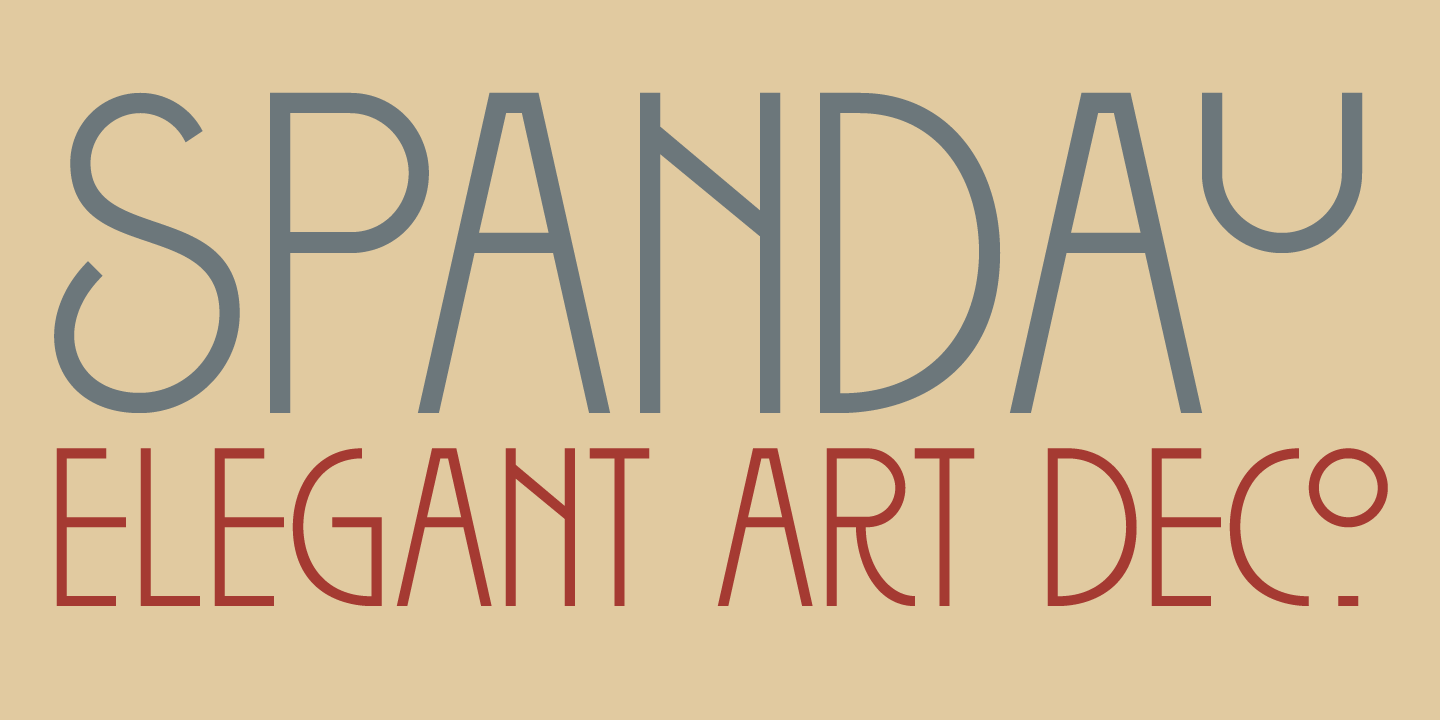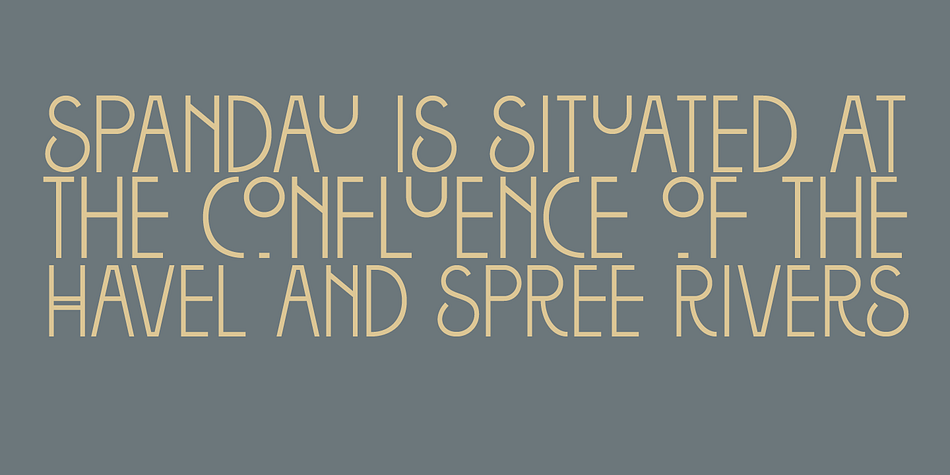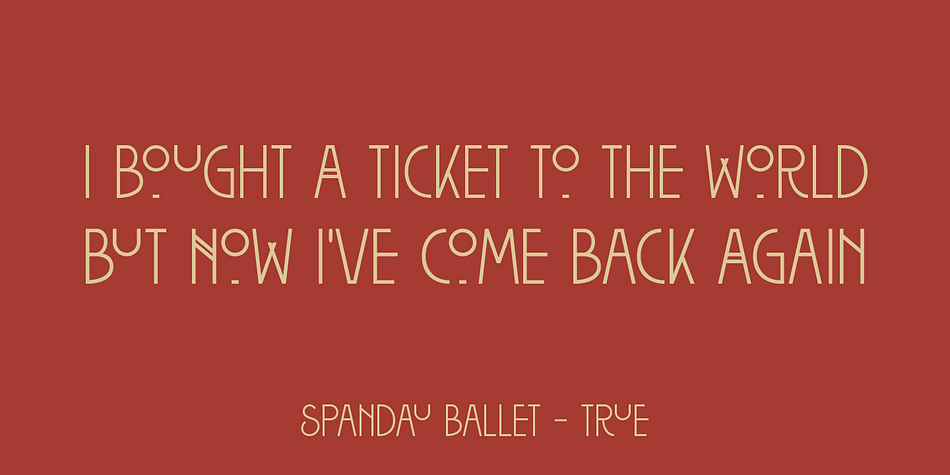
Spandau is a art deco font family. This typeface has two styles and was published by Hanoded.
Spandau is one of the 12 boroughs of Berlin and, if you add Ballet, a New Romantic British band. It is also a very nice all caps art deco font. Not too soft, not too angular, just about right! Some upper case letters differ from their lower case kin. Comes with all the diacritics you’ll need.